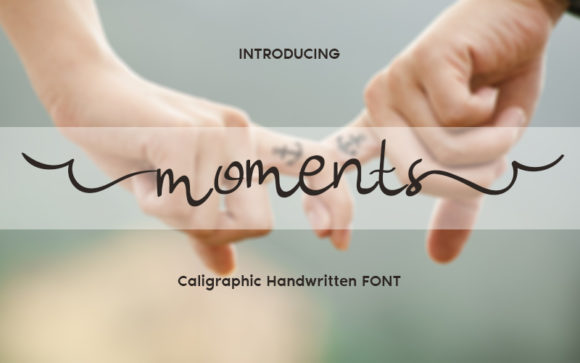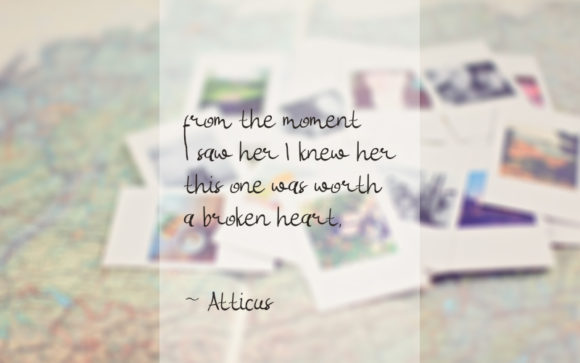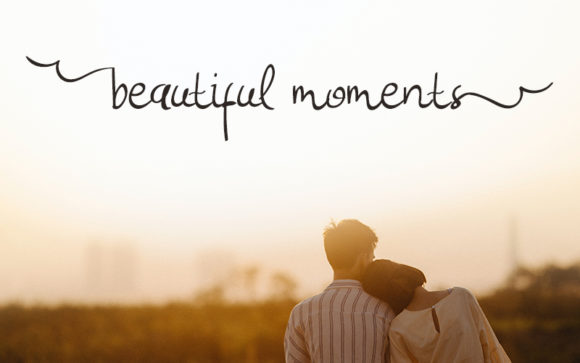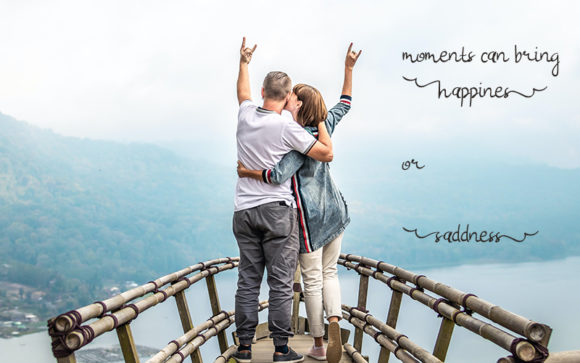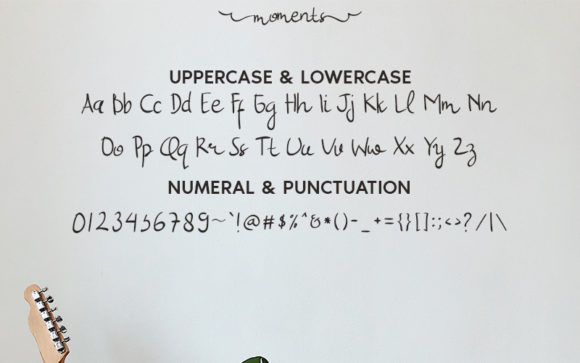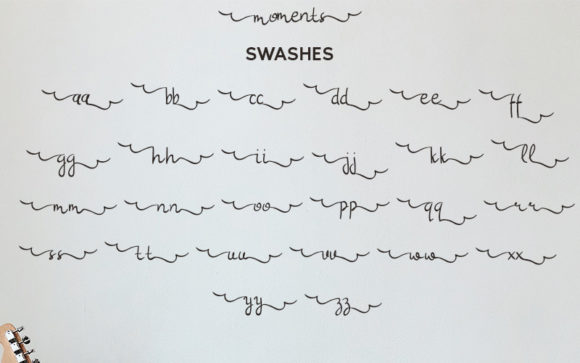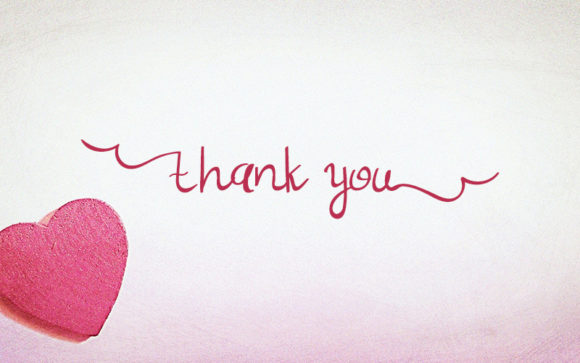
Moments Font
About Moments Font
Moments is a gorgeous handwritten font, with an incredibly sweet and classy feel. It is PUA encoded which means you can access all of the glyphs and swashes with ease! It features a varying baseline, smooth lines, gorgeous glyphs and stunning alternates. Fall in love with Moments’ versatile style and use it to create spectacular designs!